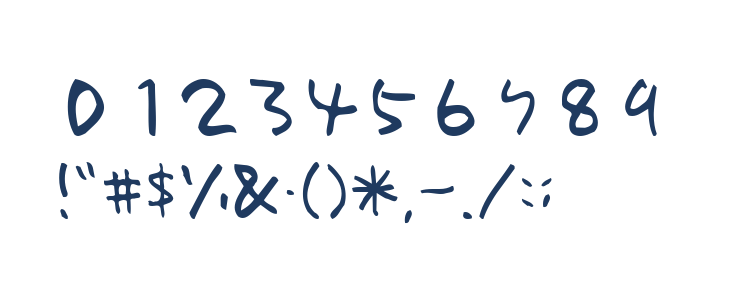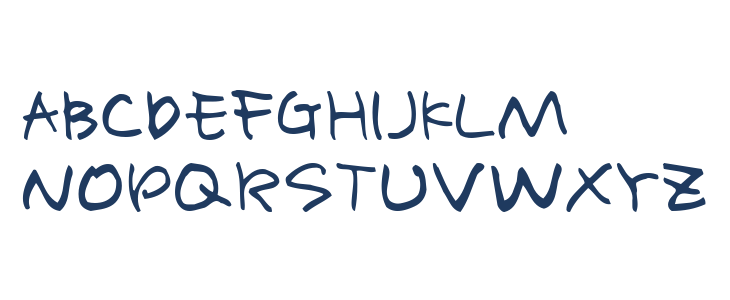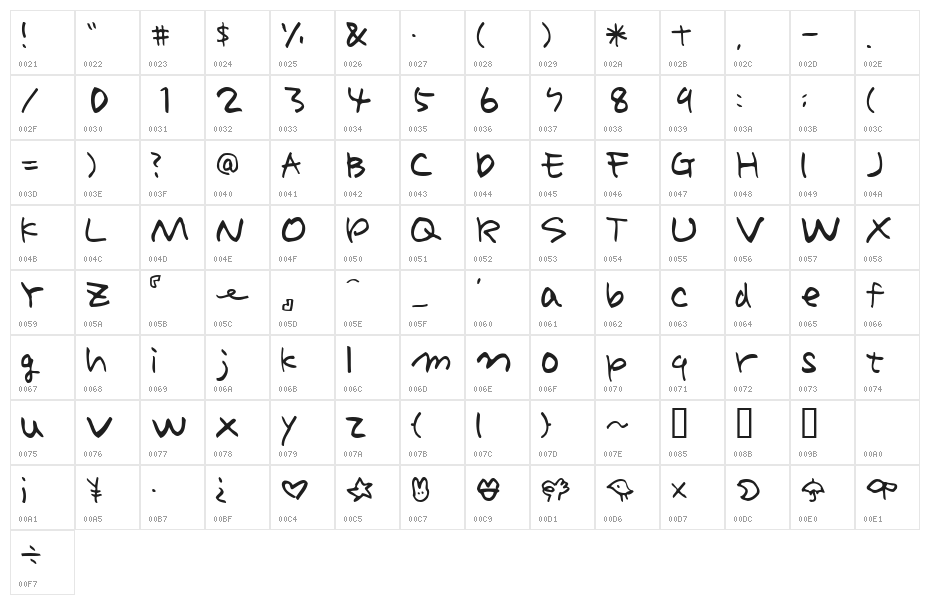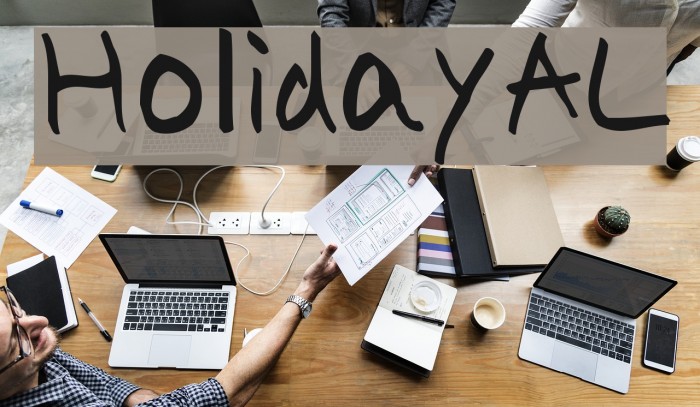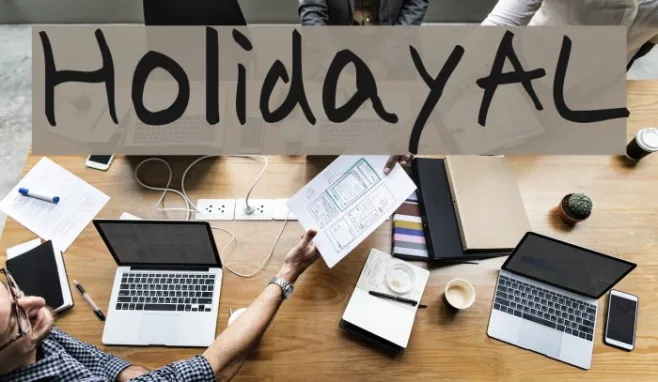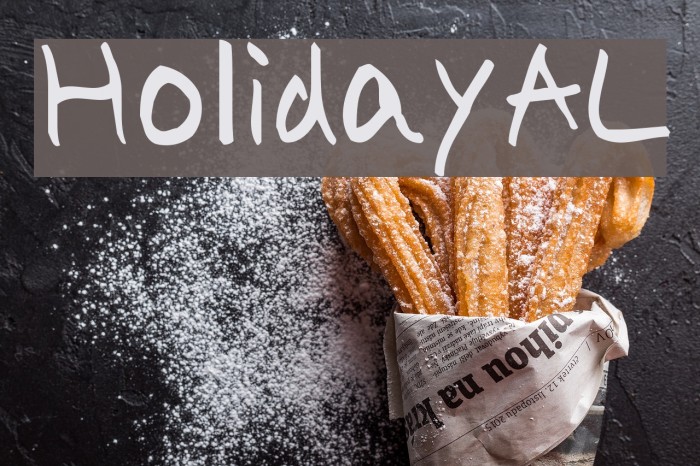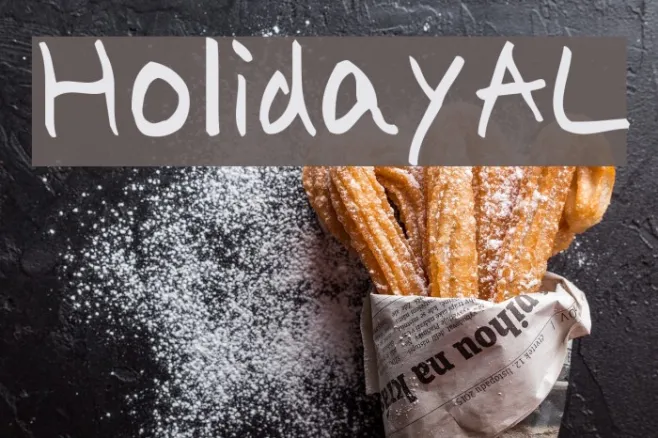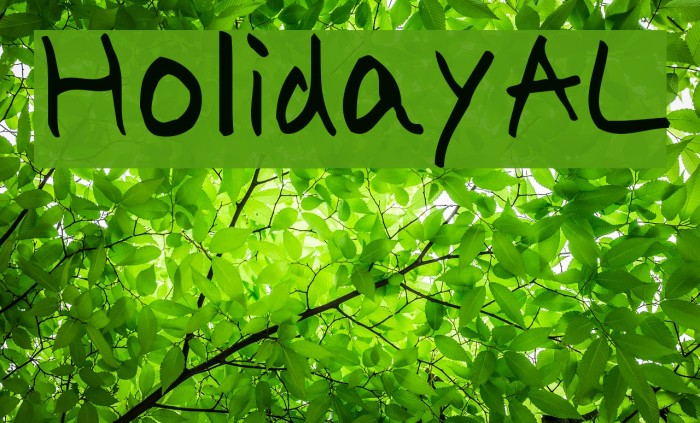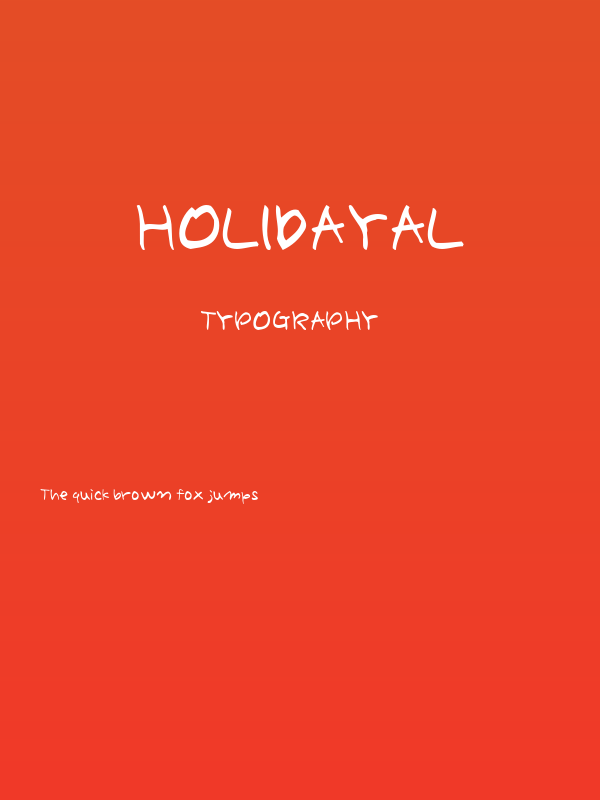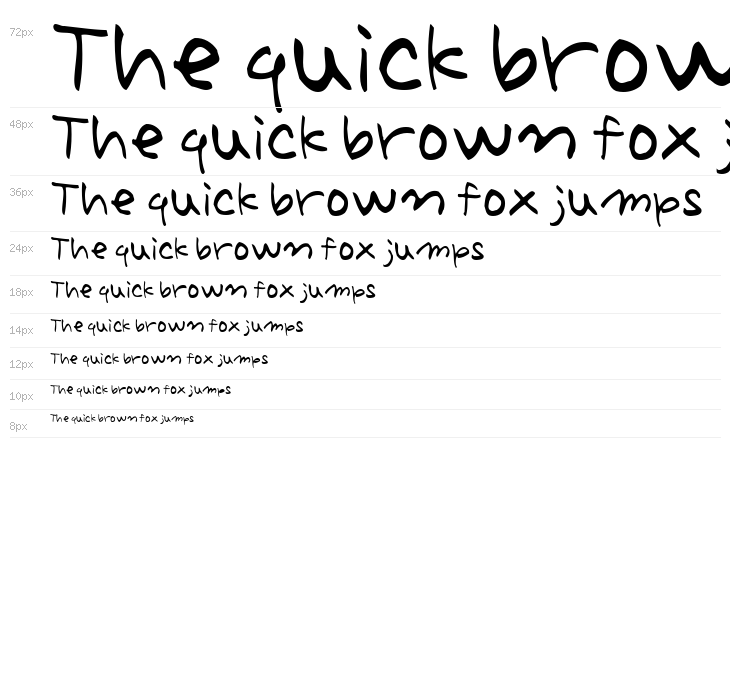
HolidayAL Font
HolidayAL Description
This font exudes a playful and informal vibe, characterized by its handwritten style. The letters are slightly irregular, giving it a casual and approachable feel. The strokes are smooth and flowing, with a slight variation in thickness that adds to its organic appearance. This font is perfect for projects that require a personal touch, such as greeting cards, invitations, or any design that aims to convey warmth and friendliness. The numerals and special characters maintain the same playful aesthetic, ensuring consistency across all text elements.
| Use Case | Headlines, Informal text, Personal notes |
| Proposed Projects | Ideal for greeting cards, invitations, personal notes, and informal branding. |